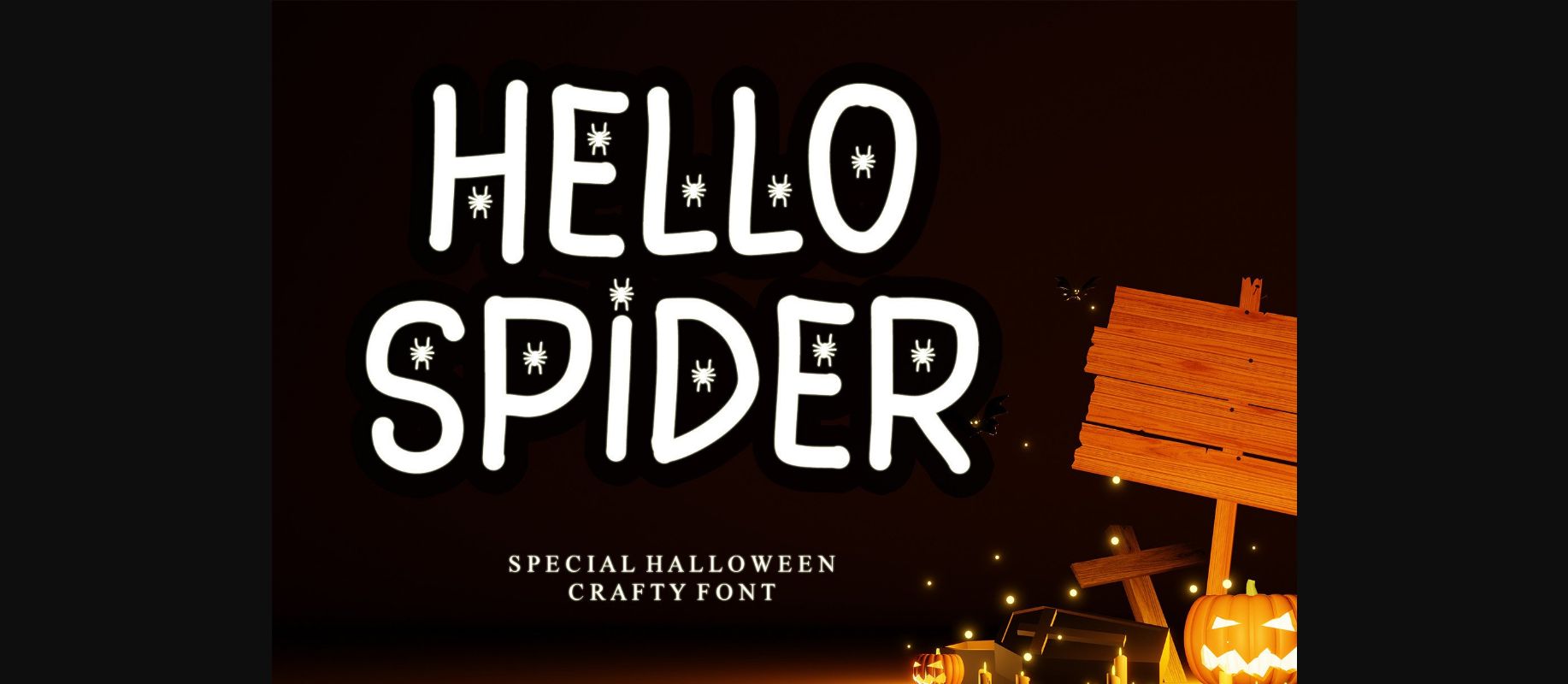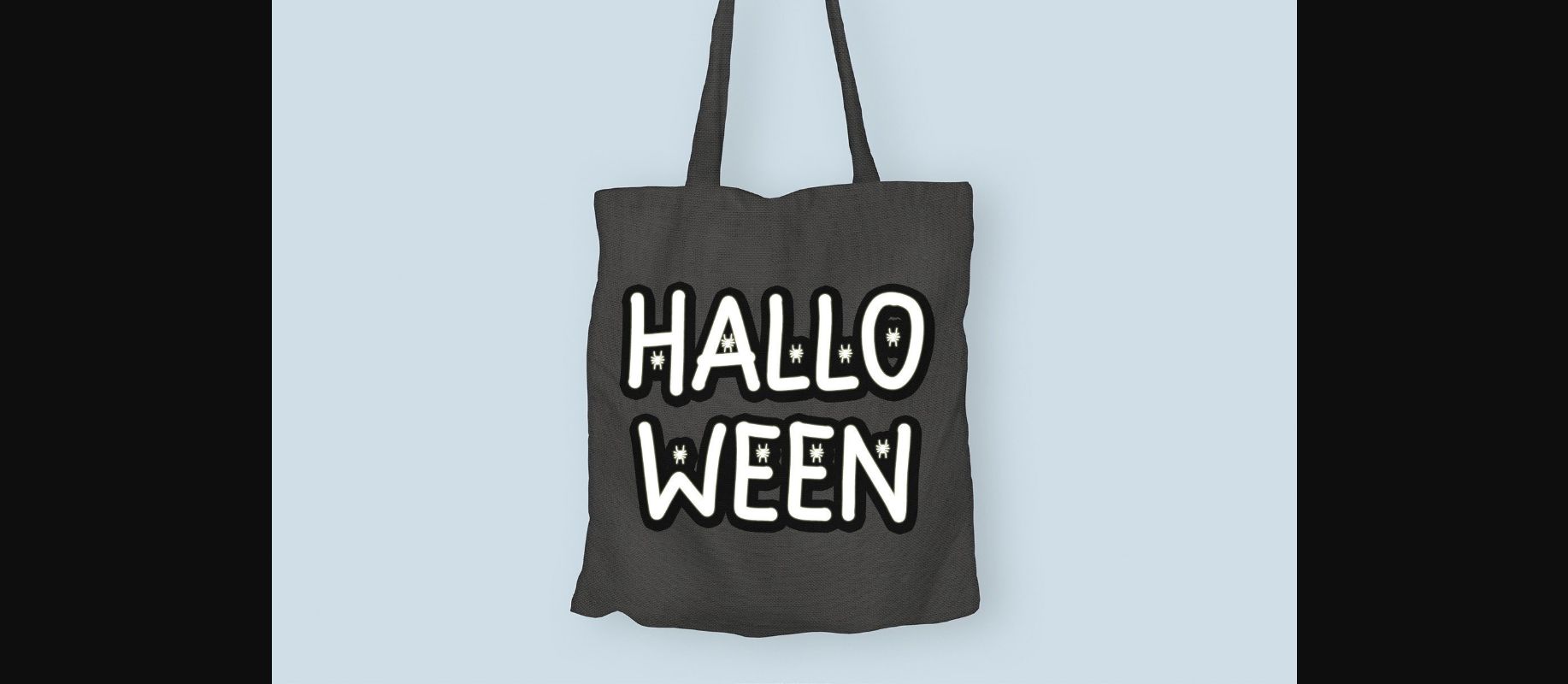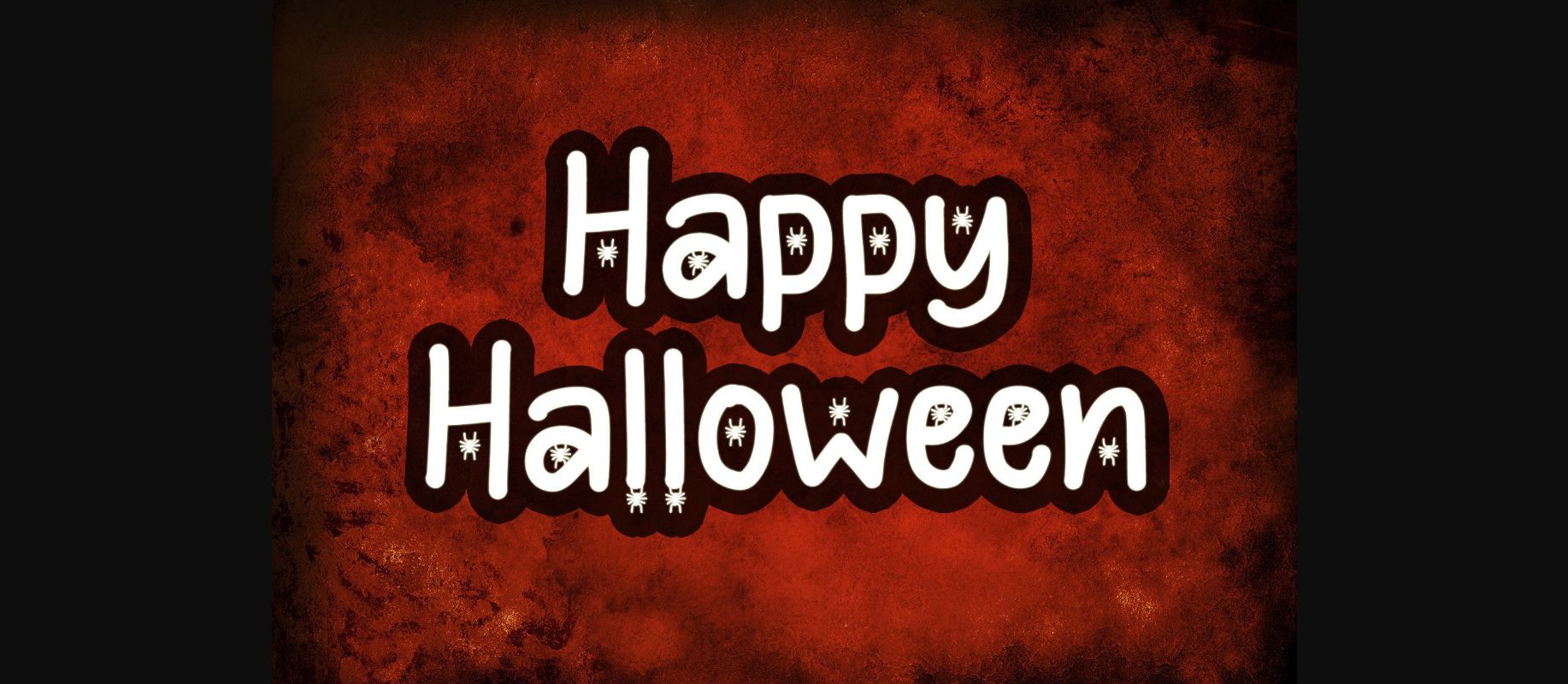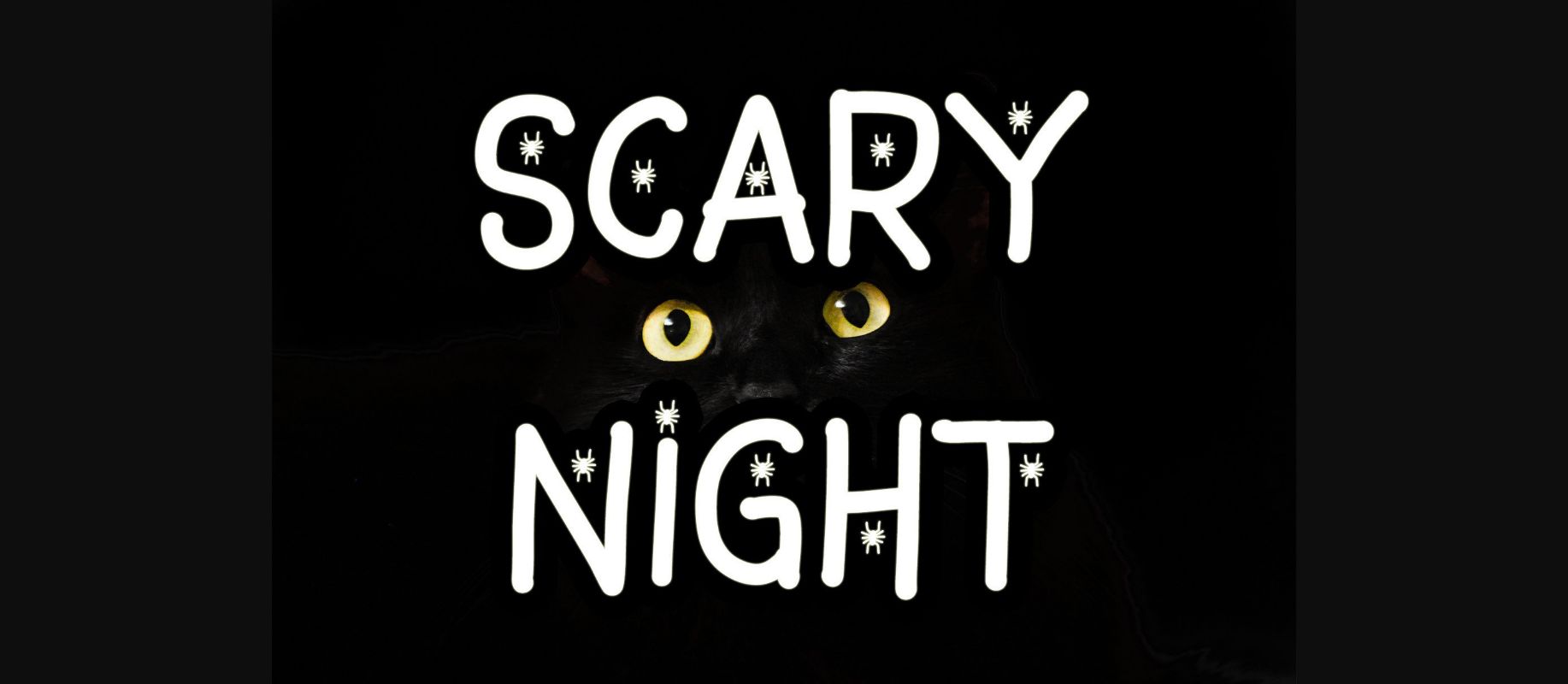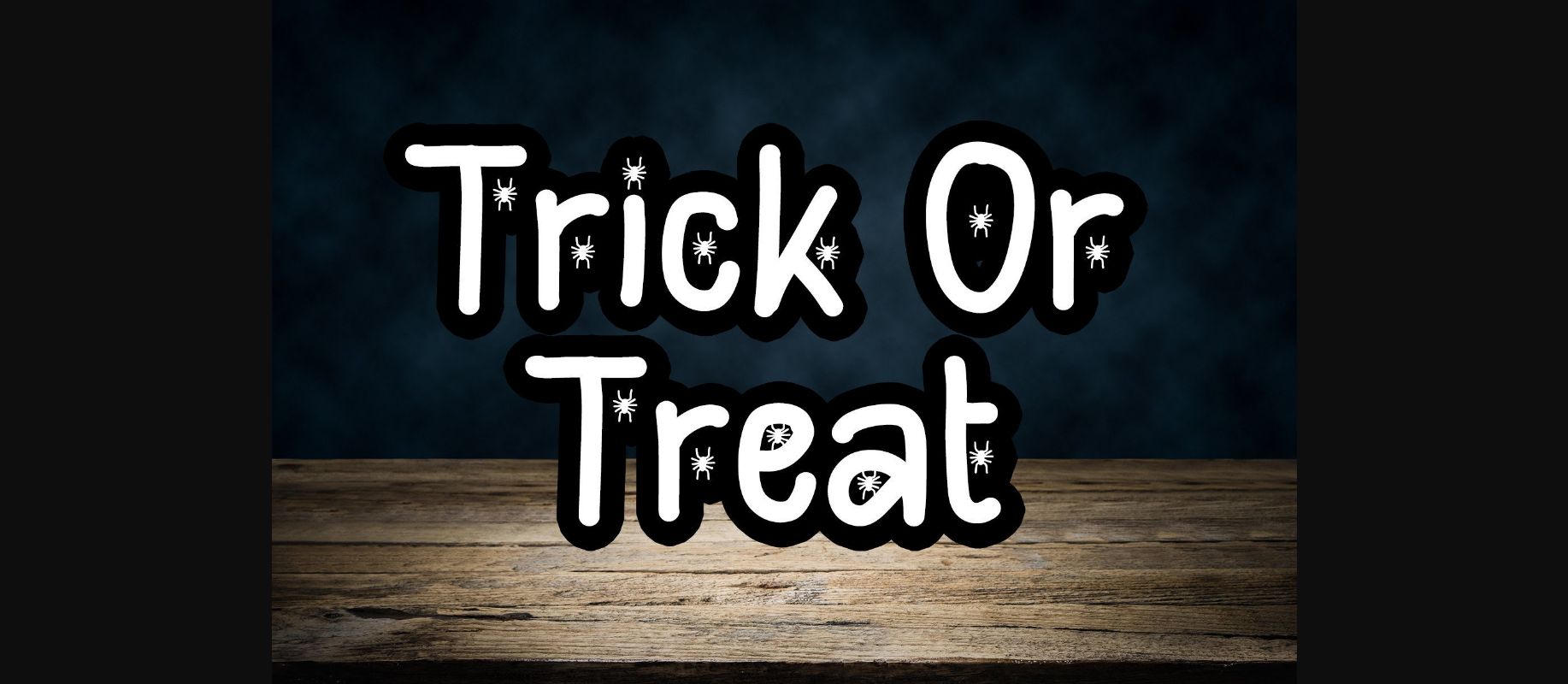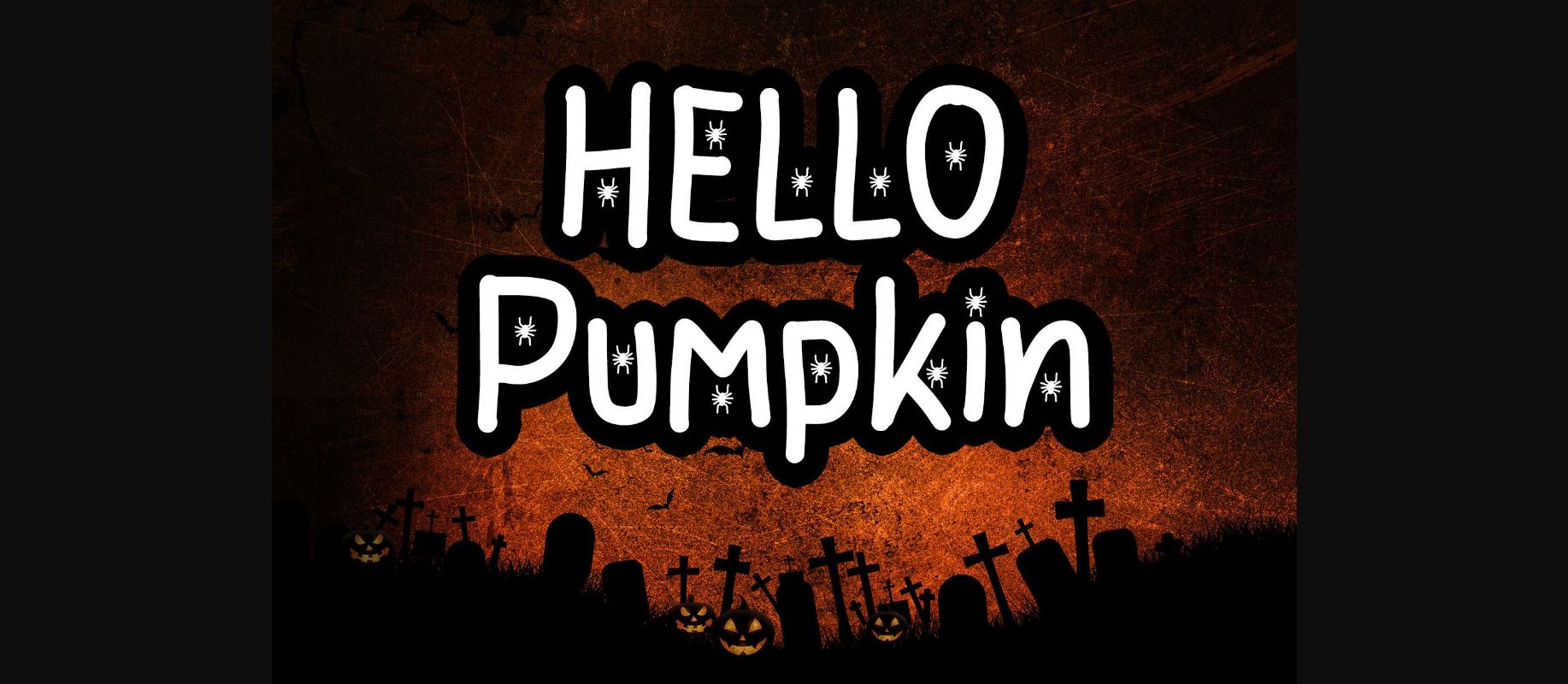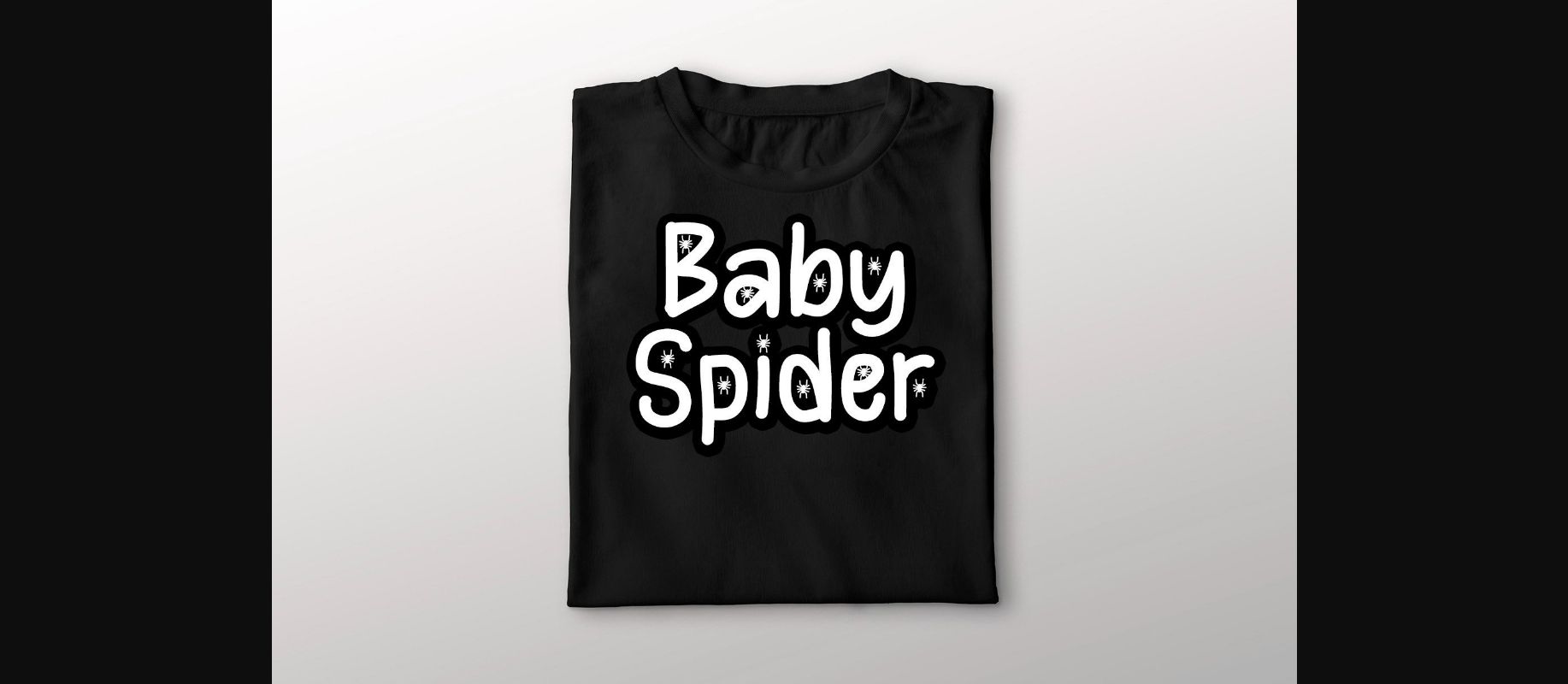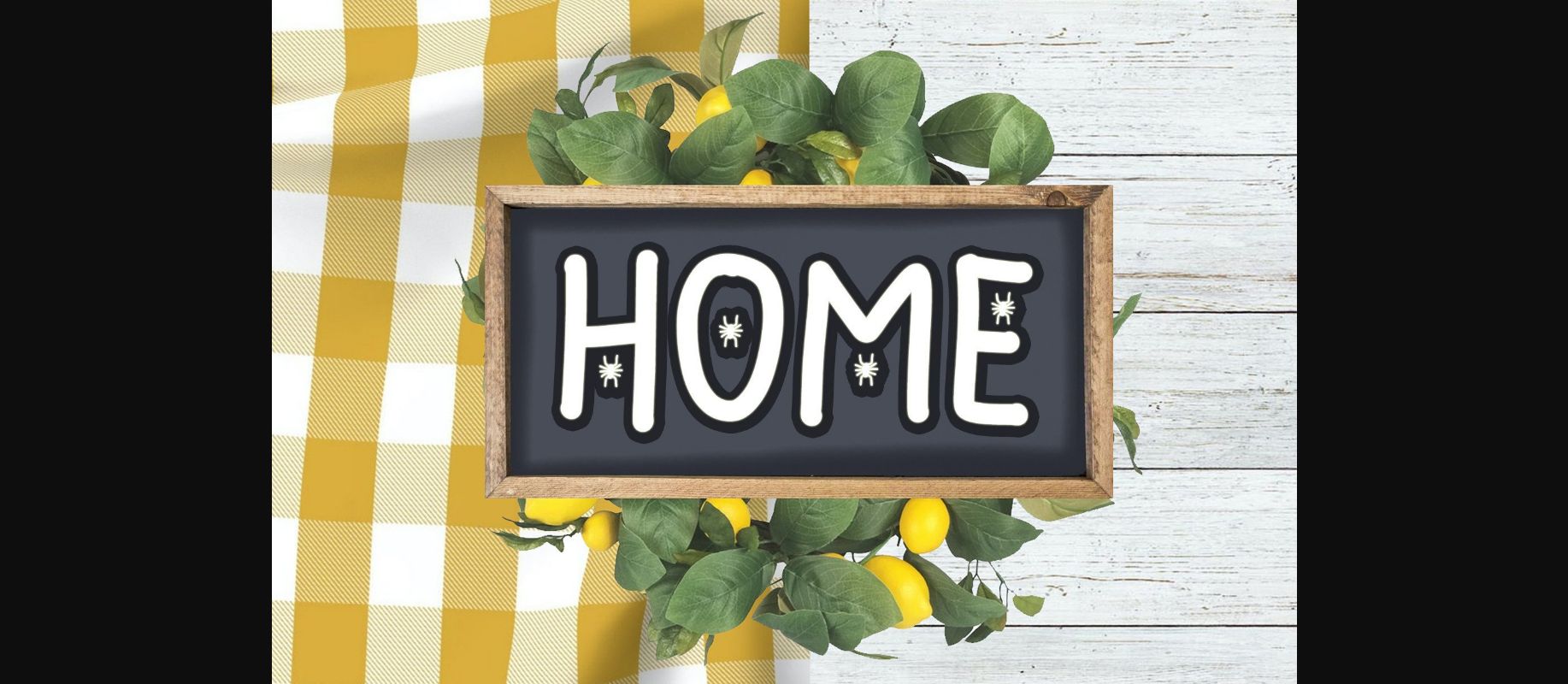
HomeDecorative FontsHello Spider Font Decorative Fonts Hello Spider Font FacebookXPinterestWhatsApp 1 of 11 ... Hello Spider Font Poster 2... Hello Spider Font Poster 3... Hello Spider Font Poster 4... Hello Spider Font Poster 5... Hello Spider Font Poster 6... Hello Spider Font Poster 7... Hello Spider Font Poster 8... Hello Spider Font Poster 9... Hello Spider Font Poster 10... Hello Spider Font Poster 11... About Hello Spider Font Hello Spider is a Spider decorative font. Add it to your Halloween crafts, horror movie posters, t-shirts, and anything else that requires a spectacular look. DOWNLOAD NOW People also explored Curl Roundry Font Bittagina Font Fredricks Font Sermellia Font Santana Monogram Font Minimalist Font Rayline Swift Font Reynolds Square Font Hamburge Font 332 0 TagsHello Spider Font Previous articleStar FontNext articleBabybox Monogram Font LEAVE A REPLY Cancel reply Comment: Please enter your comment! Name:* Please enter your name here Email:* You have entered an incorrect email address! Please enter your email address here Website: Save my name, email, and website in this browser for the next time I comment. Personal Use Free Letter Clips Personal Use Free Read more about this font Farmhouse Christmas Personal Use Free Read more about this font Cataleya Personal Use Free Read more about this font Stereofidelic Personal Use Free Read more about this font BLOG How to Cut Any Font on Cricut: Convert a Font to SVG (Free) Turn any font into a clean SVG so it cuts crisp on Cricut - a quick 3-step workflow using a free font-to-SVG tool. Free vs Paid Fonts: Why Investing in Premium Fonts Is Worth It Elegant Wedding Invitation Fonts – Handwritten & Script Fonts Modern Sans-Serif Fonts That Brands Love in 2025